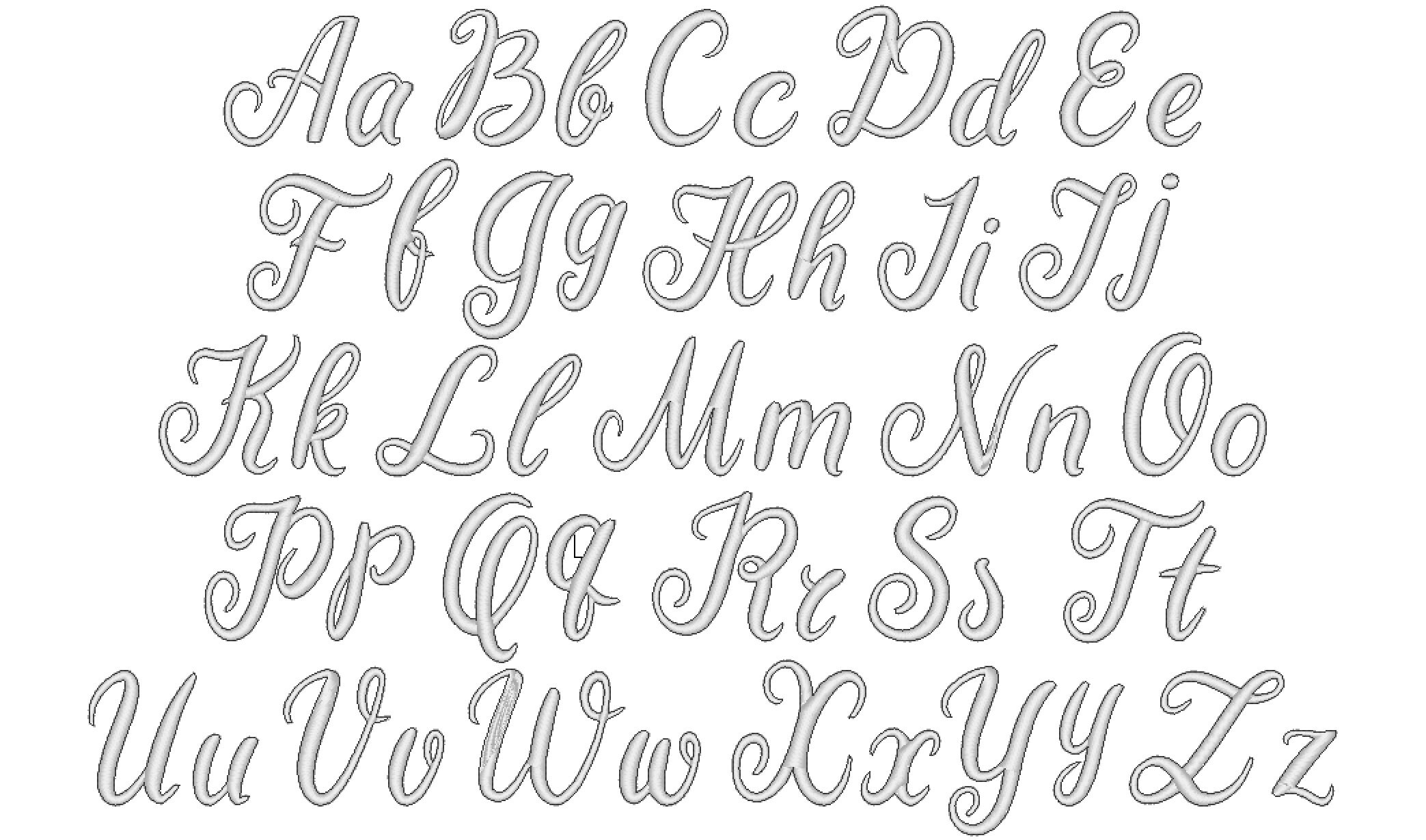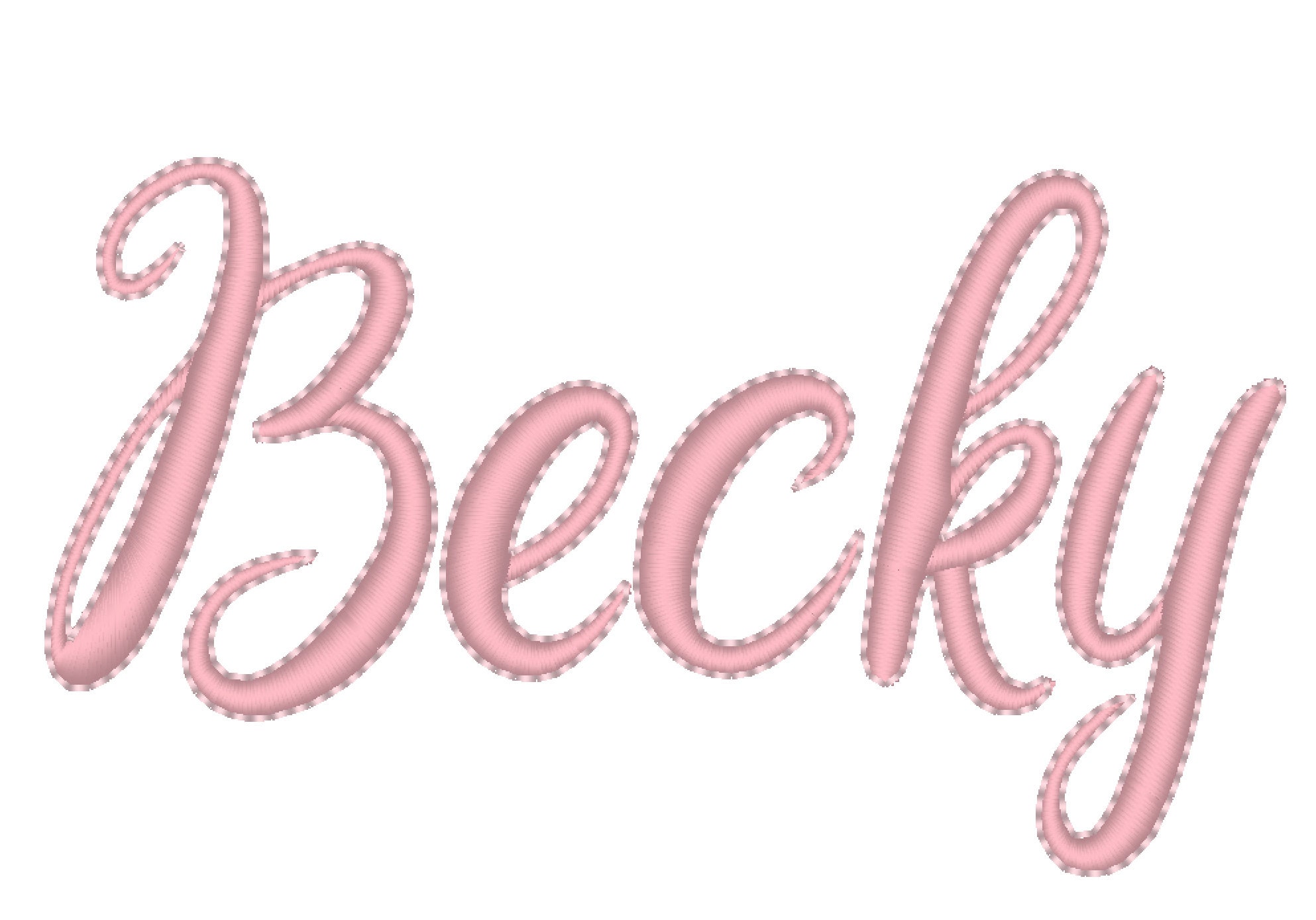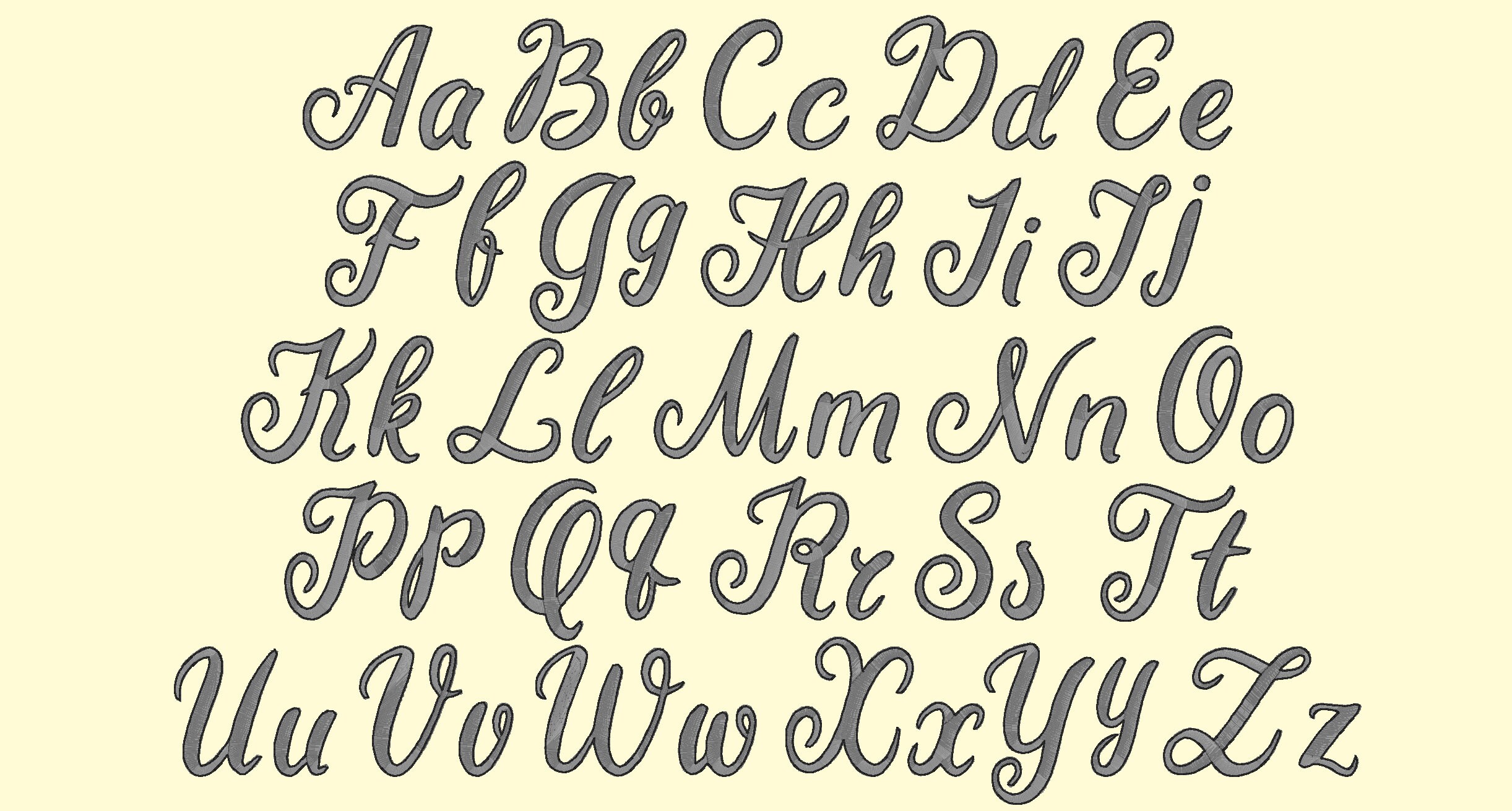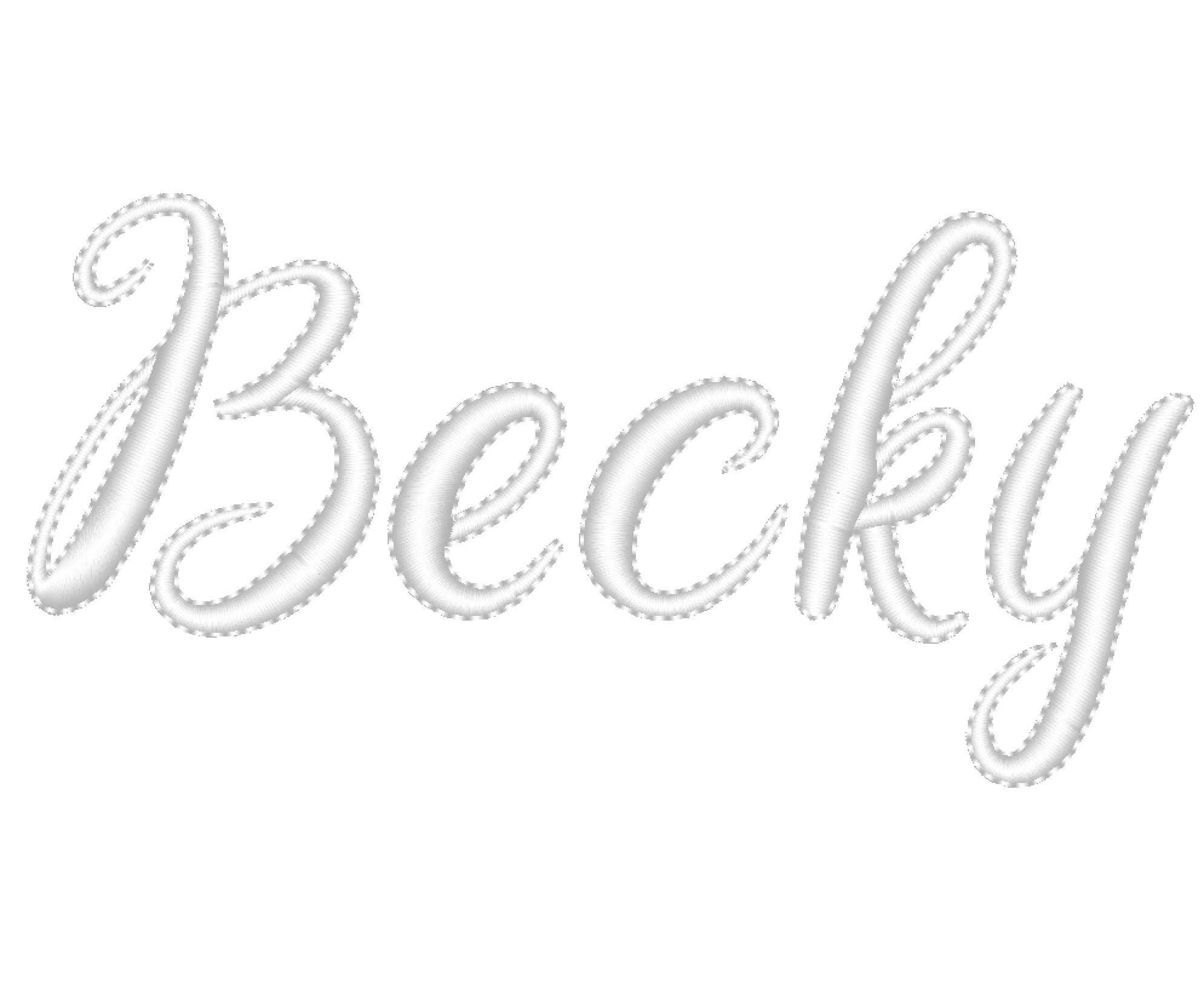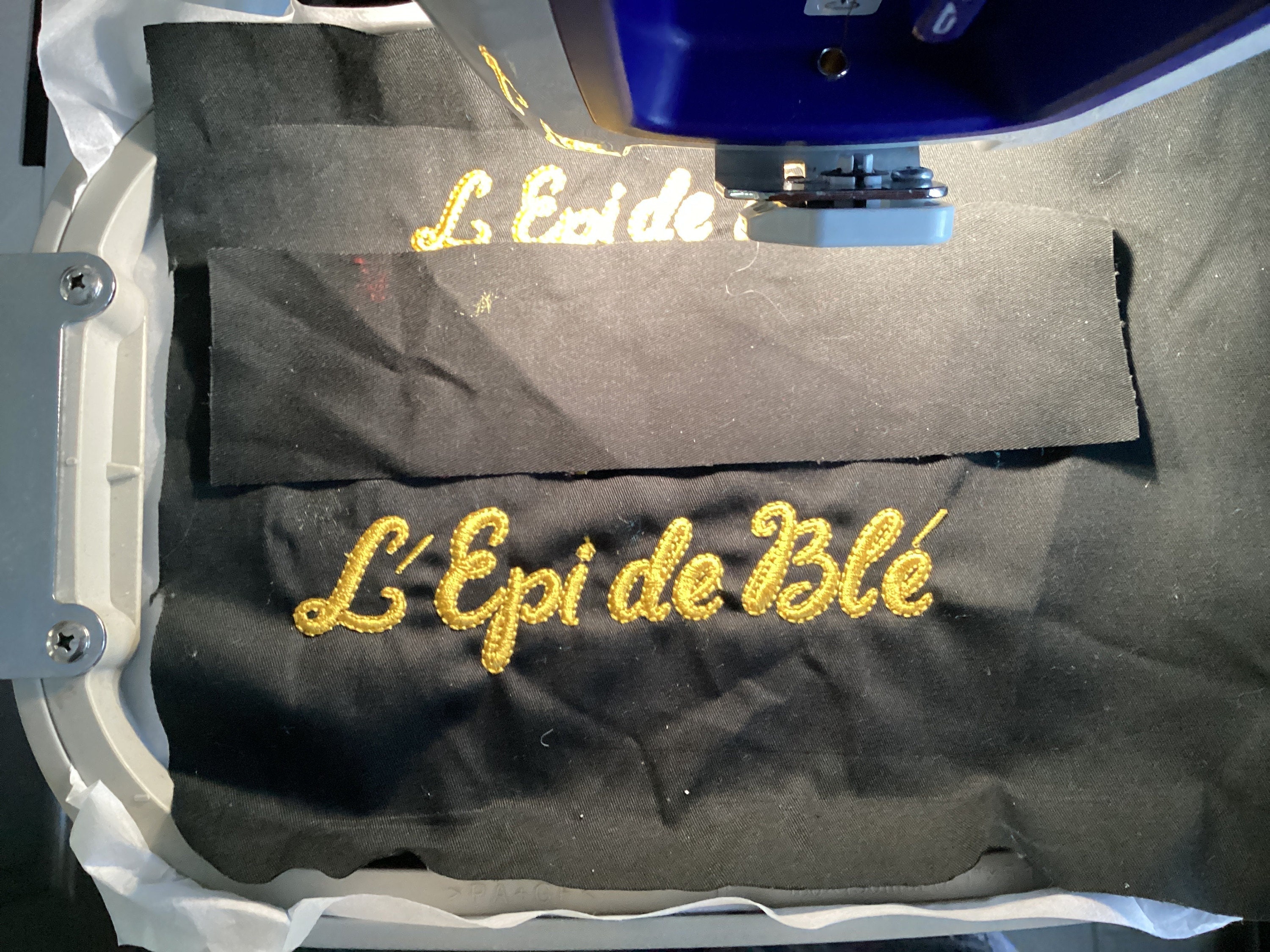
Swirl satin with bean stitch outline Font machine embroidery designs alphabet mini sizes 0.5, 1, 1.5, 1.7, 2" uppercase, lowercase girly, BX included
Capital letters and lowercase letters